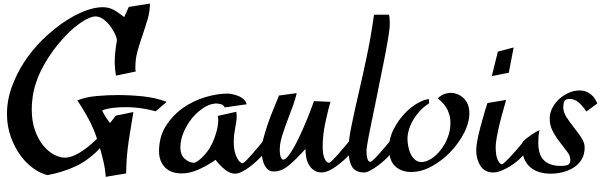
Gaulois
A couple of years before the second World War, Marcel Jacno, the popular French graphic designer who in the 1930s designed iconic posters for Gaumont and Paramount and famously illustrated the Gaulish helmet that first adorned the Gauloises...